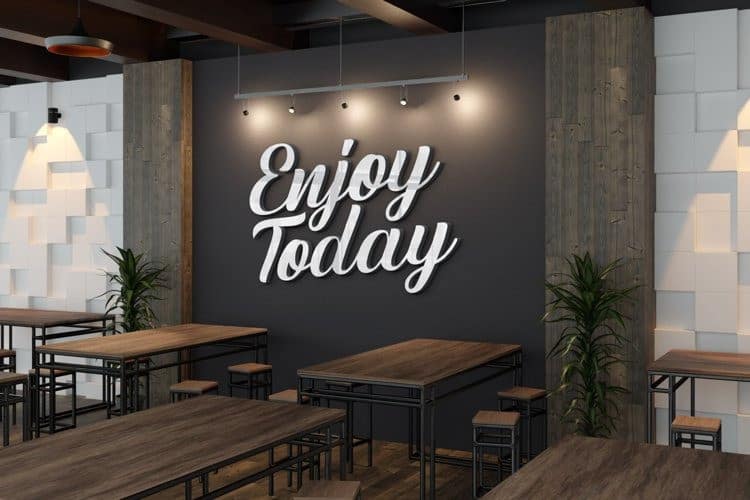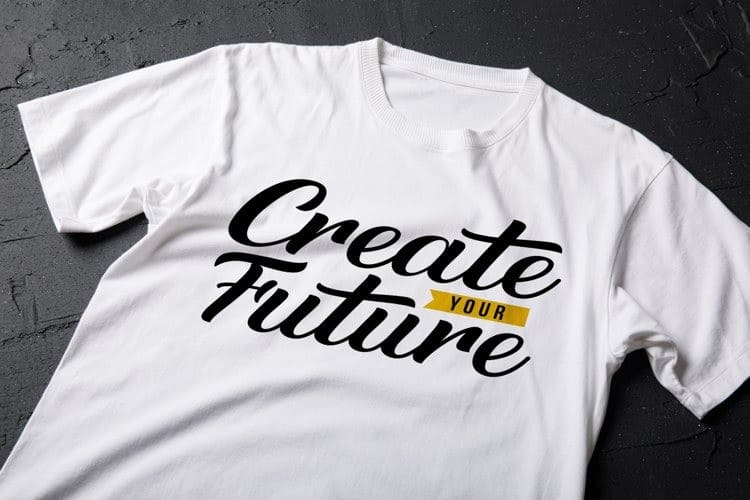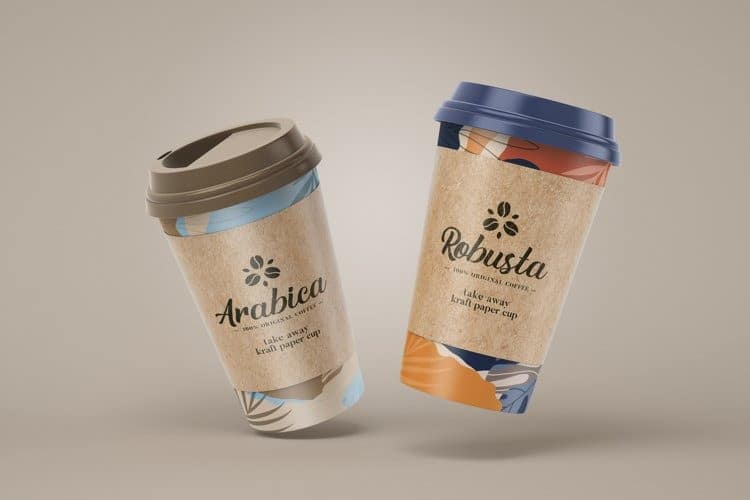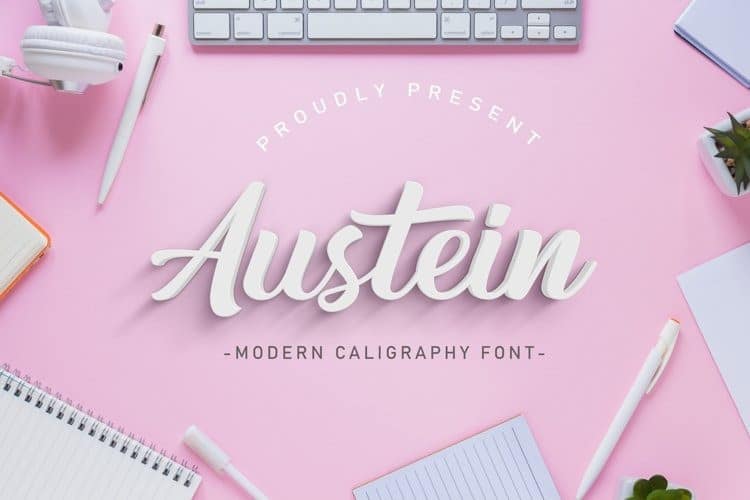
Austein Script Font
Austein Script Font is a modern script that inspired by streetwear and combination hand lettering style. It’s designed and shared by Typestory. This typeface is a bold script font, carefully handcrafted to become a true favorite. Its casual charm makes it appear wonderfully down-to-earth, readable and, ultimately, incredibly versatile. Mountain Bridge will look outstanding in any context, whether it’s being used on busy backgrounds or as a standalone headline!
Austein Script Font is PUA encoded which means you can access all of the great glyphs and swashes with ease! It also features a wealth of special features including alternate glyphs and ligatures.